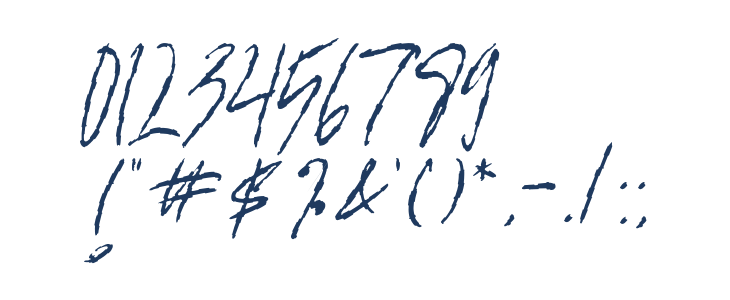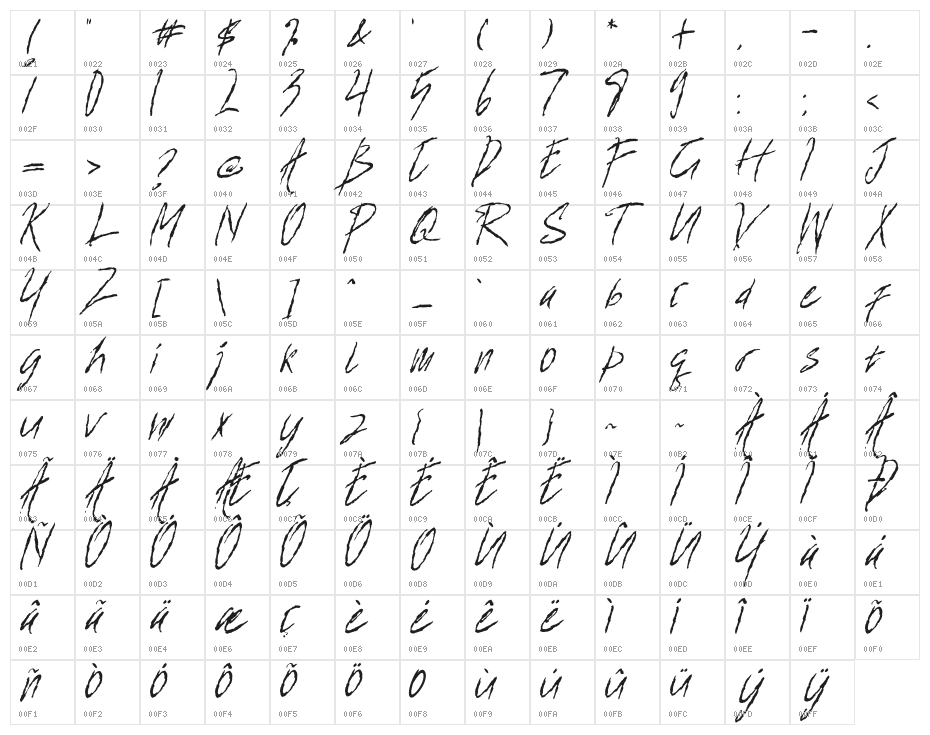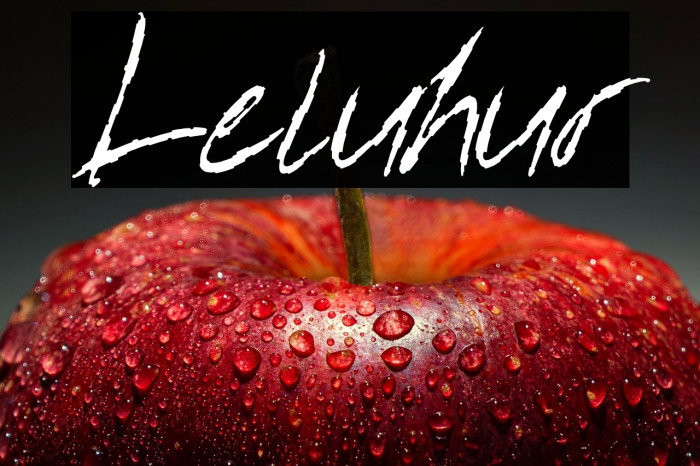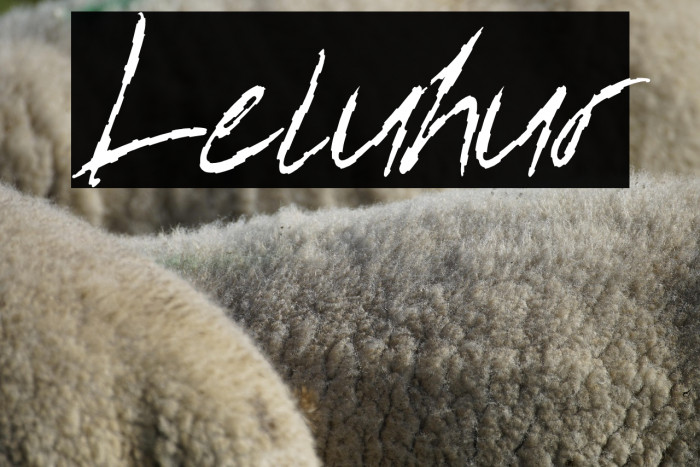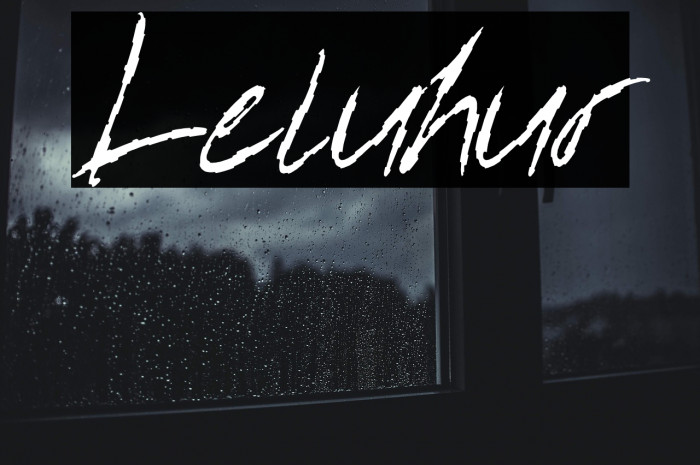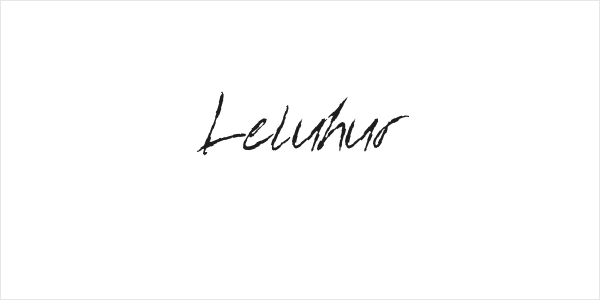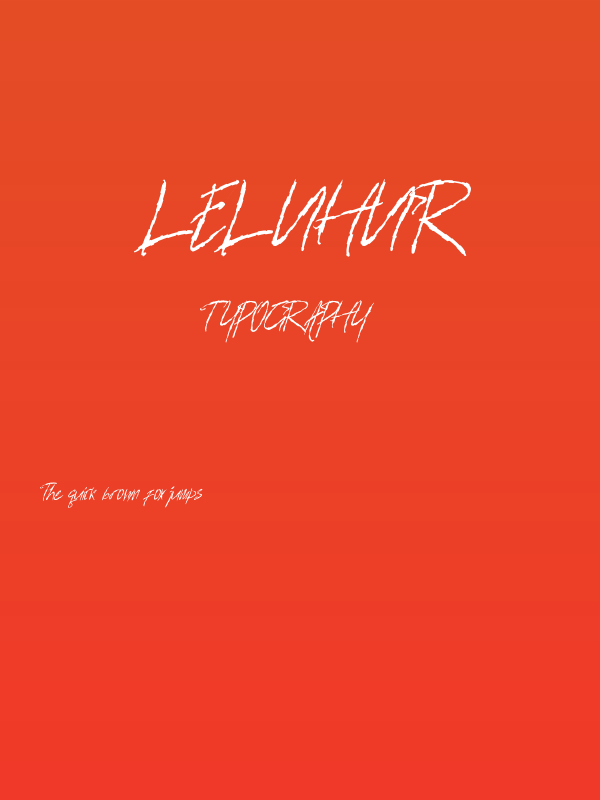
Leluhur Font
Leluhur Description
This font exhibits a dynamic and expressive handwritten style, characterized by its fluid and irregular strokes that mimic the natural flow of handwriting. The letters are slightly slanted, adding a sense of motion and energy. The uppercase and lowercase letters maintain a consistent style, with some variations in stroke thickness that add to its organic feel. The numerals and special characters are crafted with the same attention to detail, ensuring a cohesive look across all glyphs. This font's unique personality makes it stand out, offering a blend of creativity and informality.